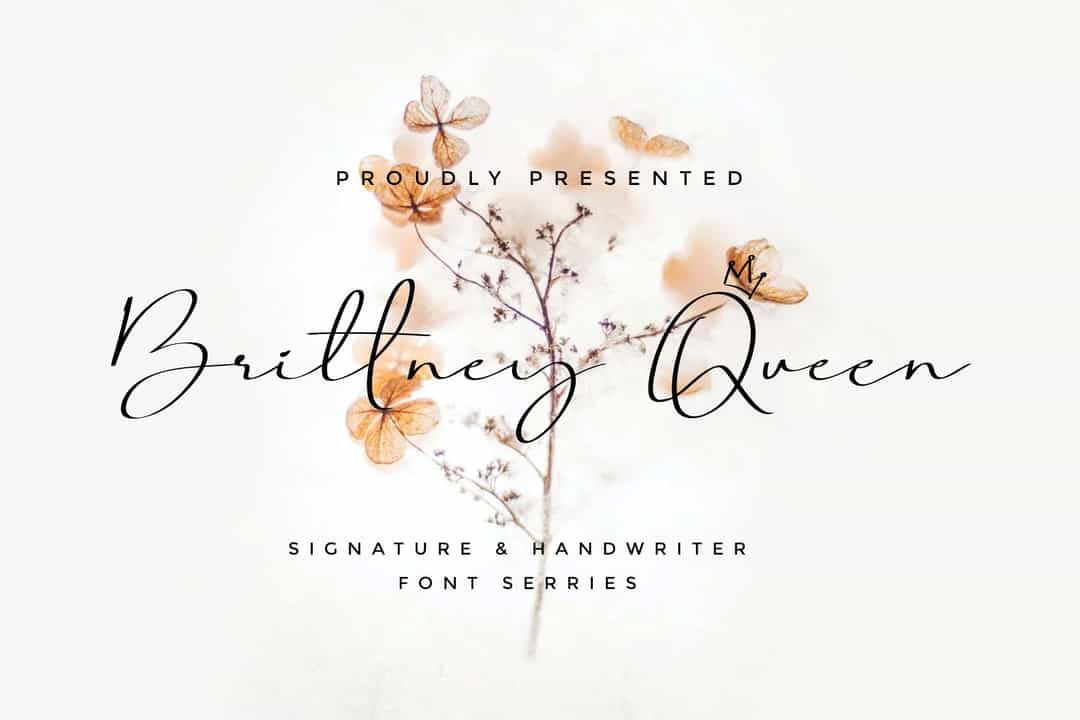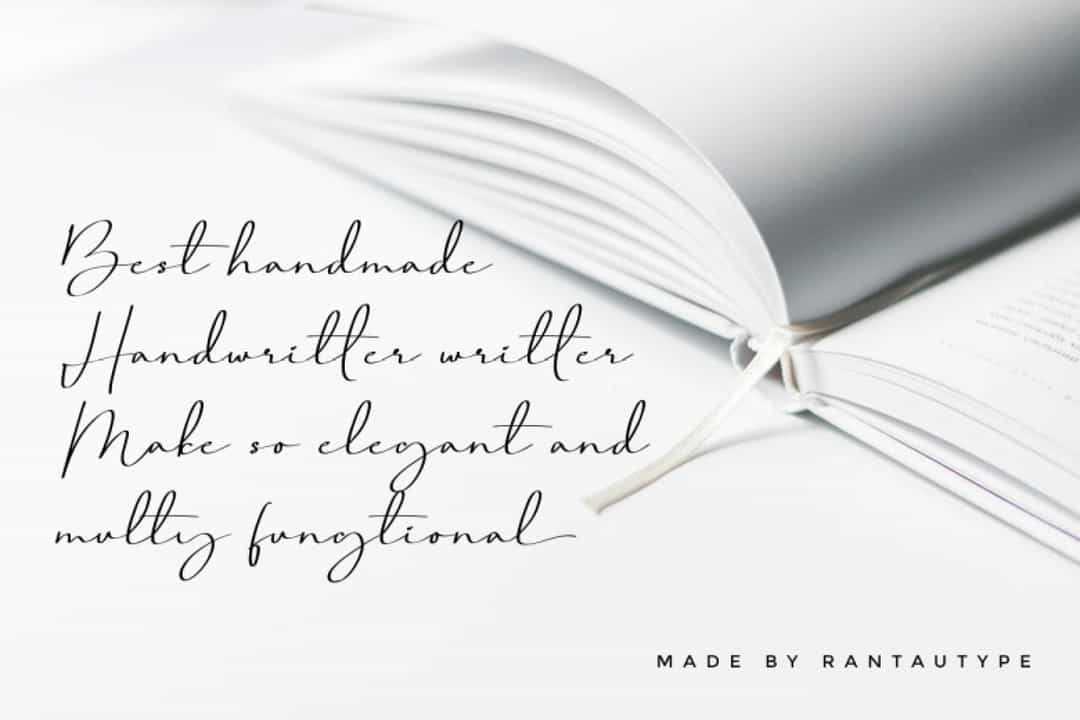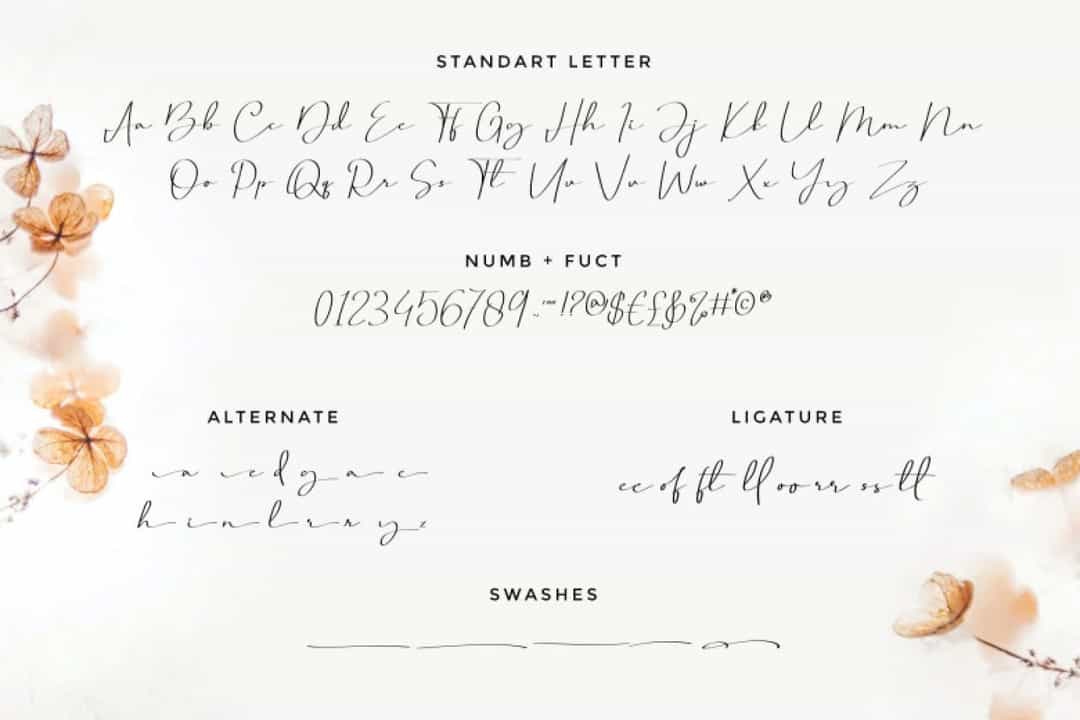
“Brittney Queen” script Signature handwritten font. This font depicts an elegant and stunning woman that can represent professional. Elegant, stylish, easy-to-read attractive trendy and user-friendly all describe this font perfectly. Brittney Queen is an incredible choice to watermark your photography signature or logo designs albums, quotes, album covers and business cards to take them from ordinary to extraordinary! She will ensure your work looks incredible!